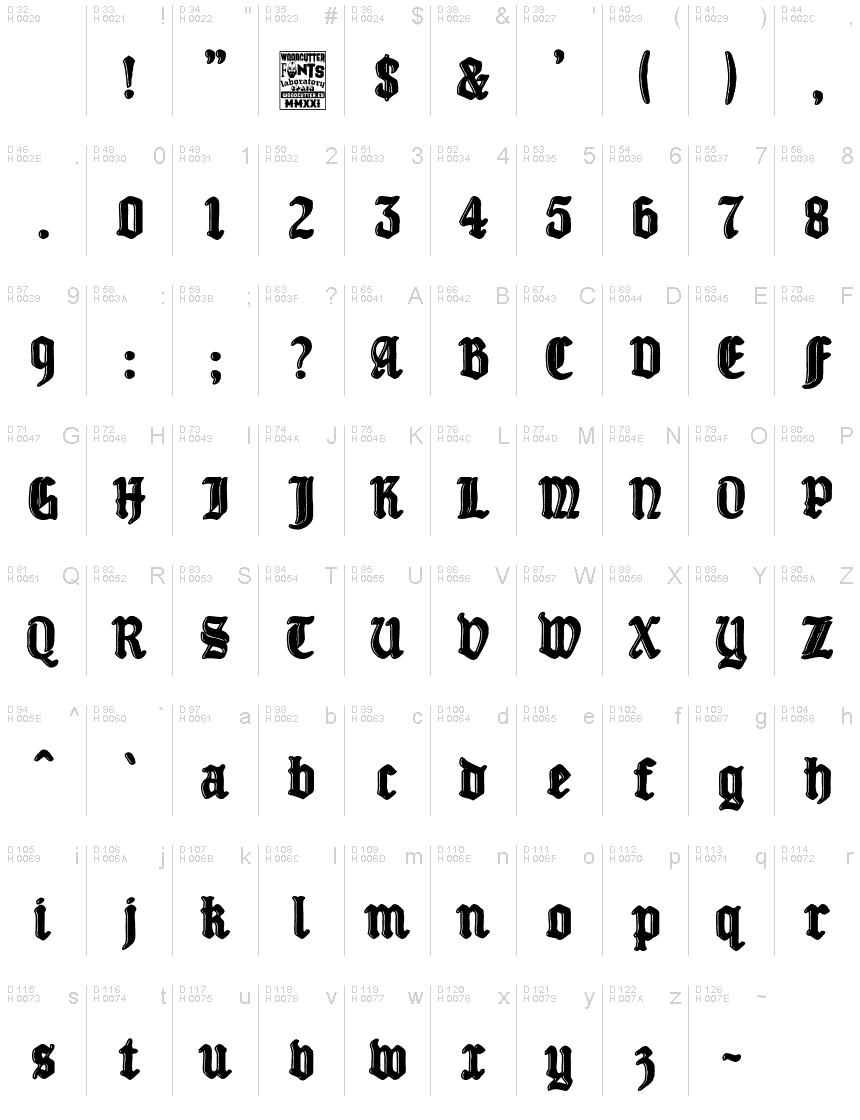
Gothic Division 1939
Gothic Division 1939 by Woodcutter is the perfect font for those looking to add a touch of edginess and drama to their projects. This bold gothic typeface features a condensed width, making it ideal for designs that require a sleek and modern look. Whether you're working on a poster, album cover, or logo, Gothic Division 1939 will make your text stand out and demand attention. Its strong lines and sharp corners evoke a sense of power and mystery, making it suitable for projects in the fashion, music, or gaming industries. Give your designs an edge with Gothic Division 1939.